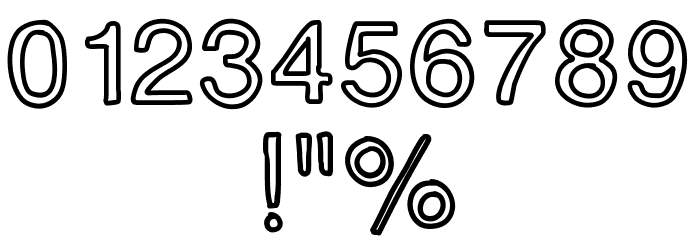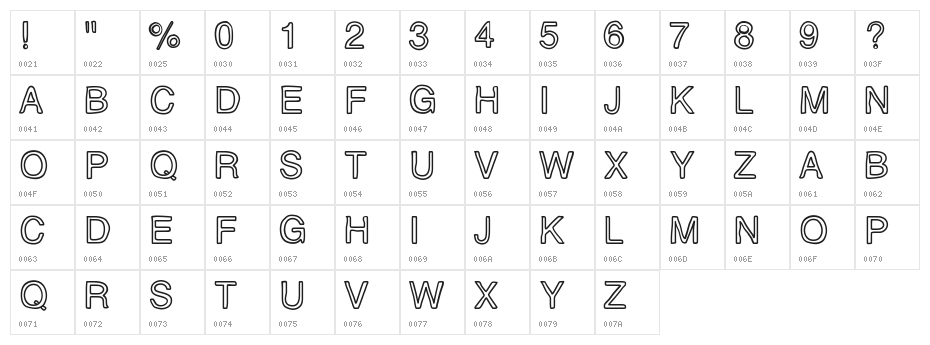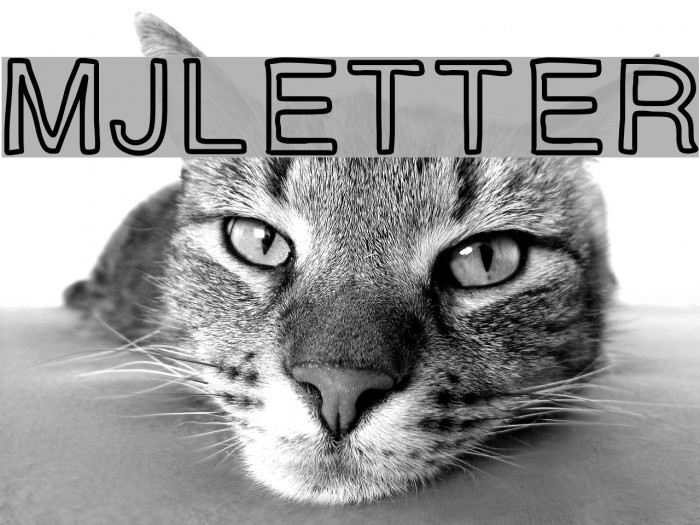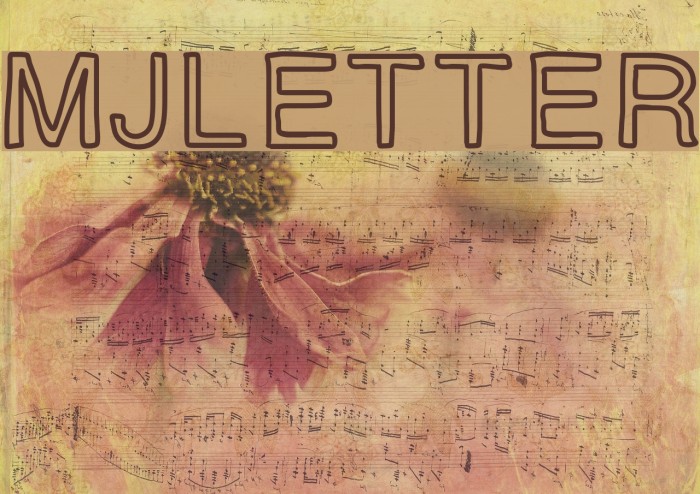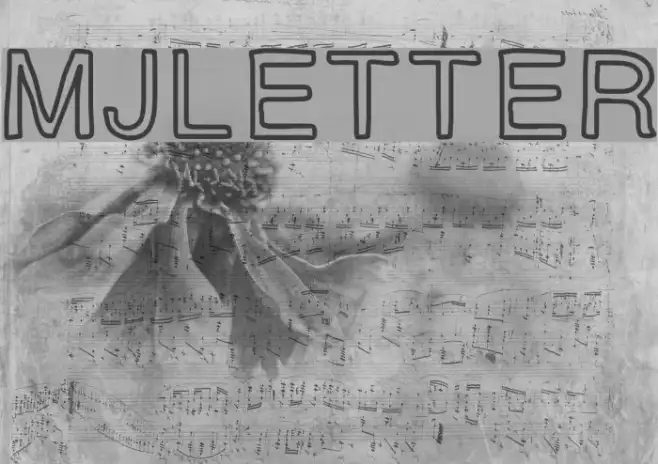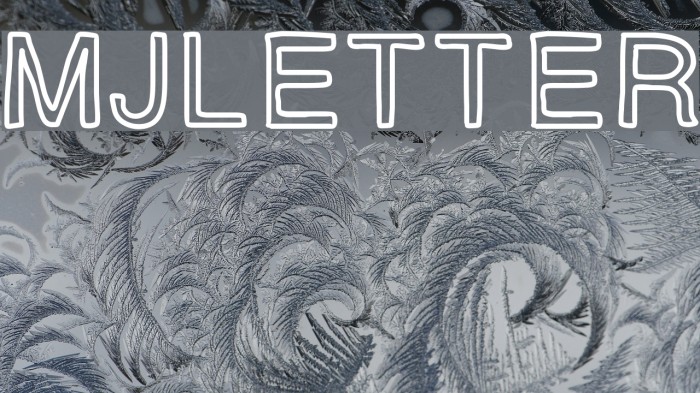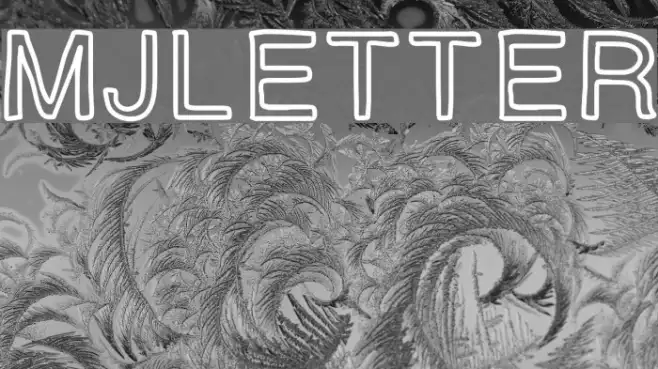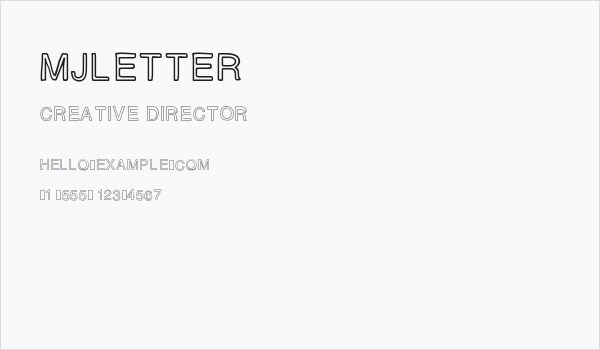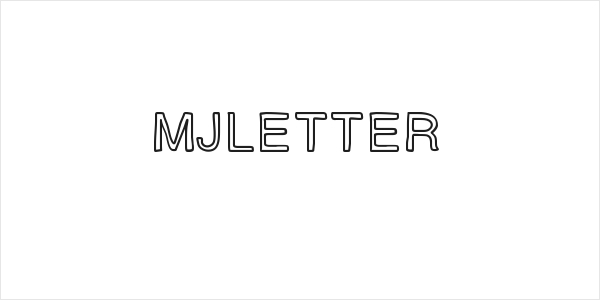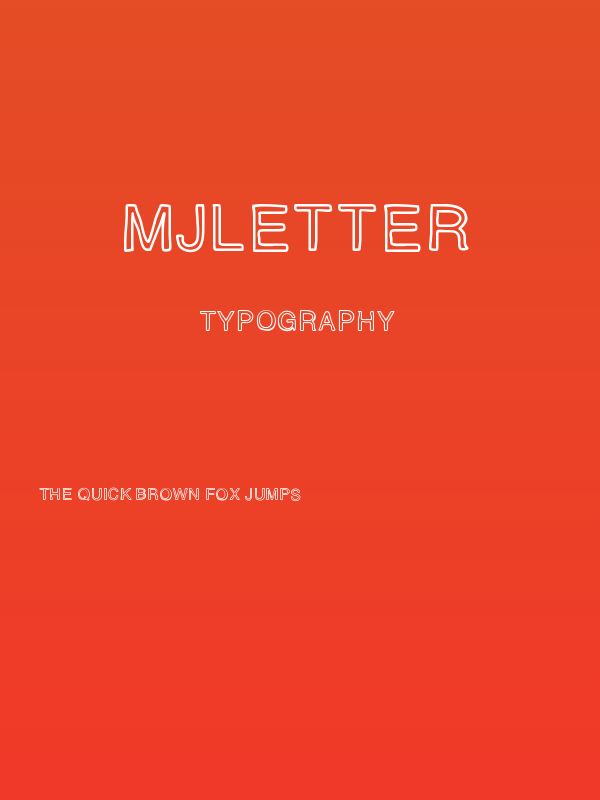
MJletter Font
MJletter Description
This font features a bold, outlined style with a modern and clean appearance. Each character is crafted with a consistent stroke width, creating a uniform look across both uppercase and lowercase letters. The numerals and special characters maintain the same outlined aesthetic, ensuring cohesion throughout. The design is straightforward yet impactful, making it suitable for a variety of applications where clarity and style are essential. The spacing between characters is normal, allowing for easy readability without appearing cramped or overly spaced.
| Proposed Projects | Ideal for headlines, posters, branding, and any project requiring a strong visual impact. |